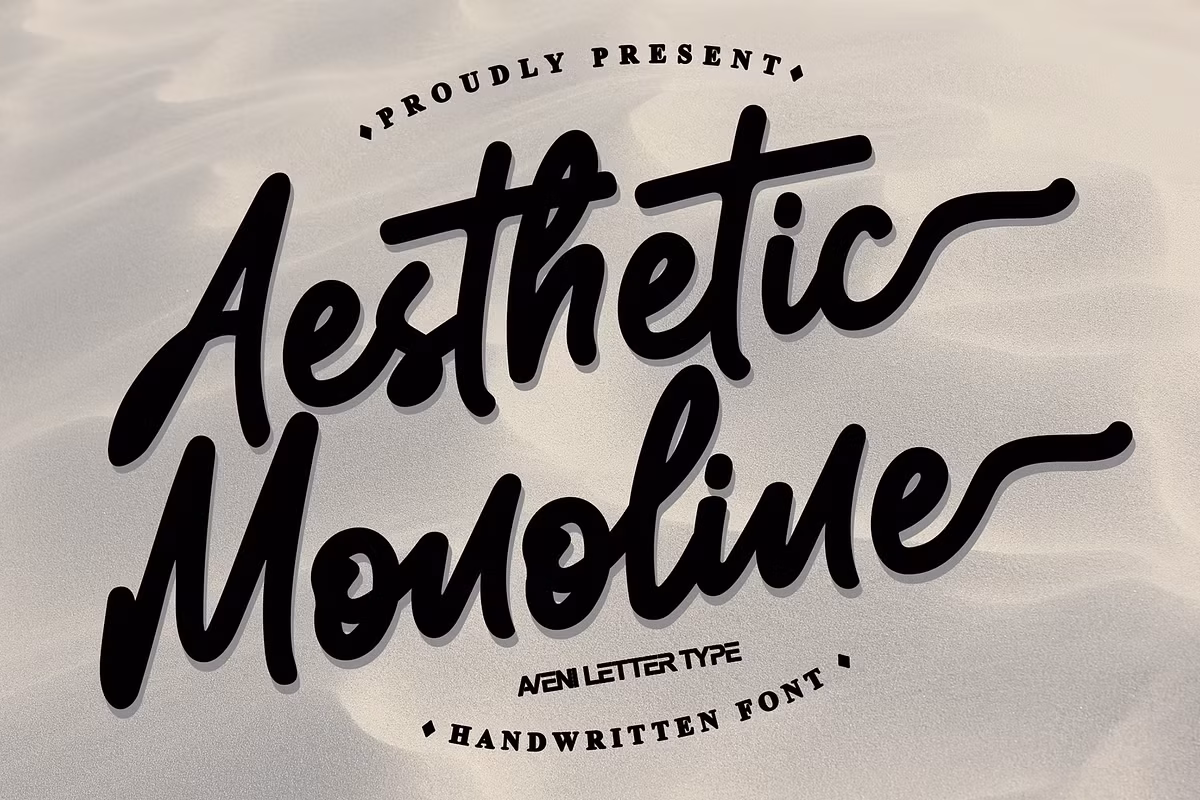
Please note that you must purchase this font for commercial use. You can download Aesthetic Monoline – Handwritten Font for free, strictly for personal testing purposes only. Aesthetic Monoline is a stylish and elegant handwritten font with a smooth, monoline design. Its clean, continuous strokes make Aesthetic Monoline Font Free Download perfect for creating modern, artistic designs such as logos, branding, invitations, social media graphics, and more.
The font has a minimalistic and sophisticated feel, offering a touch of personality while maintaining clarity and readability. It includes uppercase and lowercase letters, numerals, punctuation, and multilingual support, making it versatile for various creative applications.
Whether you're designing a custom logo, creating invitations, or working on modern branding, Aesthetic Monoline adds a unique, artistic touch to your typography.